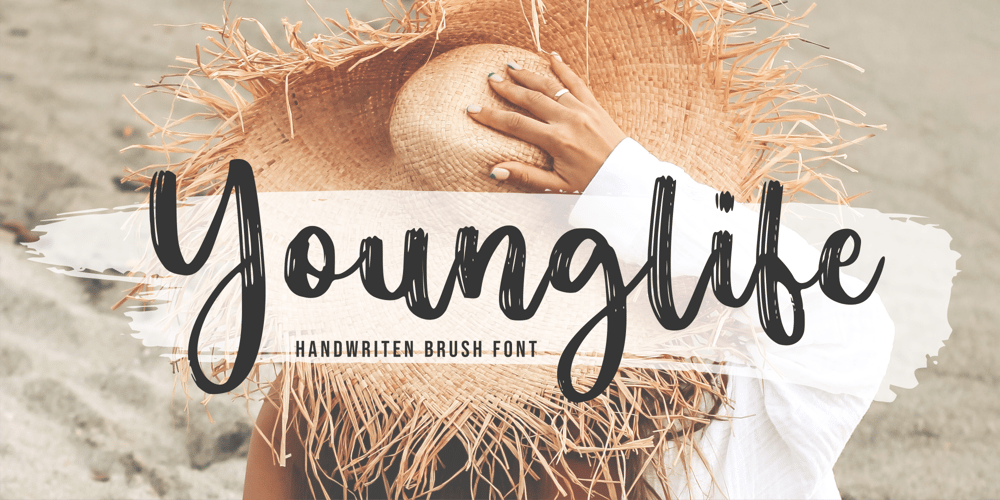
Younglife
Younglife font
Younglife Font Family was designed by Fachrizal Yusuf and published by Allouse Studio. Younglife contains 1 styles and family package options. Proudly Presenting, Younglife A Handwritten Script Font.Younglife is perfect for any titles, logo, product packaging, branding project, megazine, social media, wedding, or just used to express words above the background.Younglife also come with Multi-Lingual Support.Enjoy the font, feel free to comment or feedback, send me PM or email. Thank You!